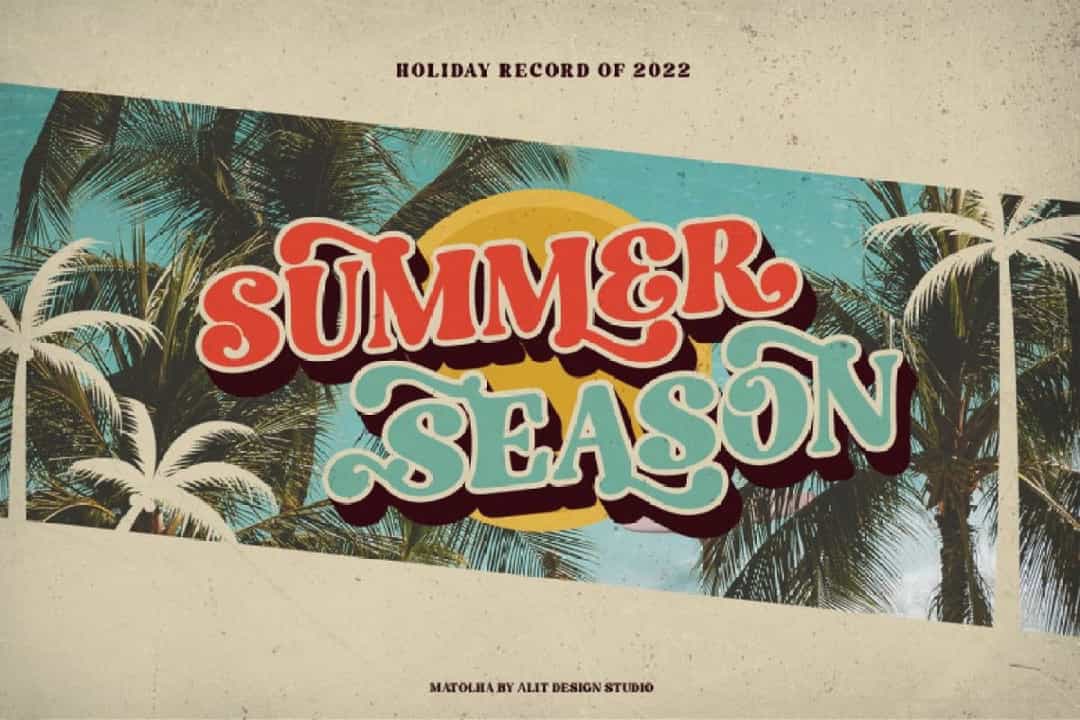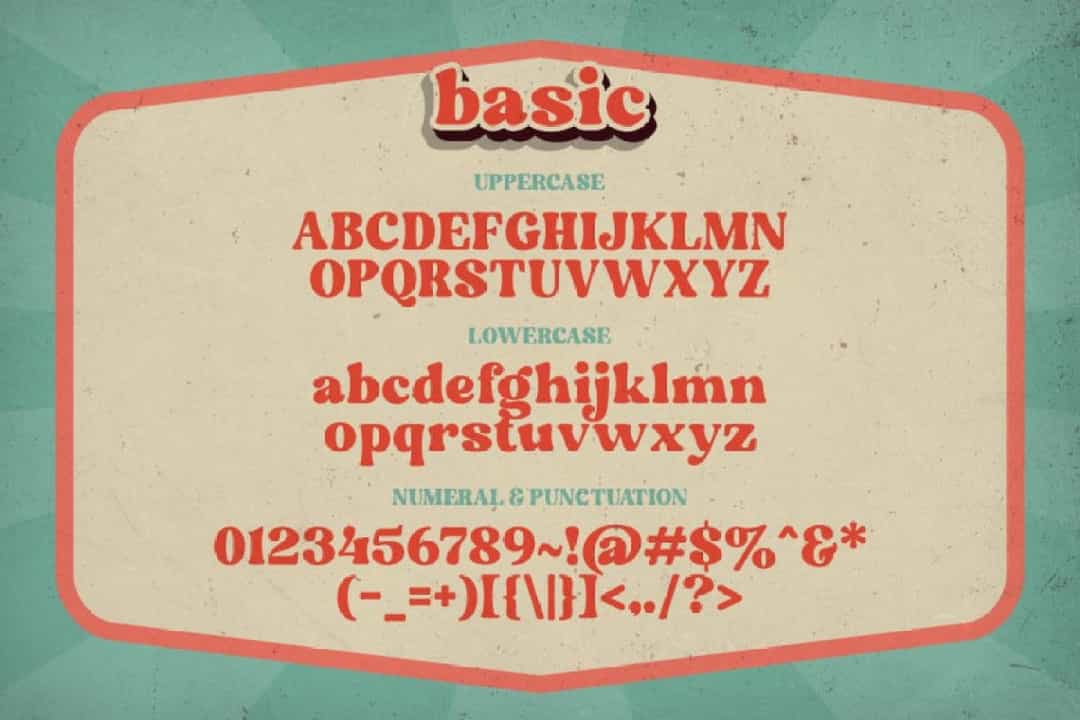
Matolha Typeface draws its inspiration from fashionably retro designs from the 80s and 90s. Fonts such as “The Matolha Typeface” at that time provided a bold yet modern appearance; today this font still provides plenty of alternate characters and swashes for easy retro designs.